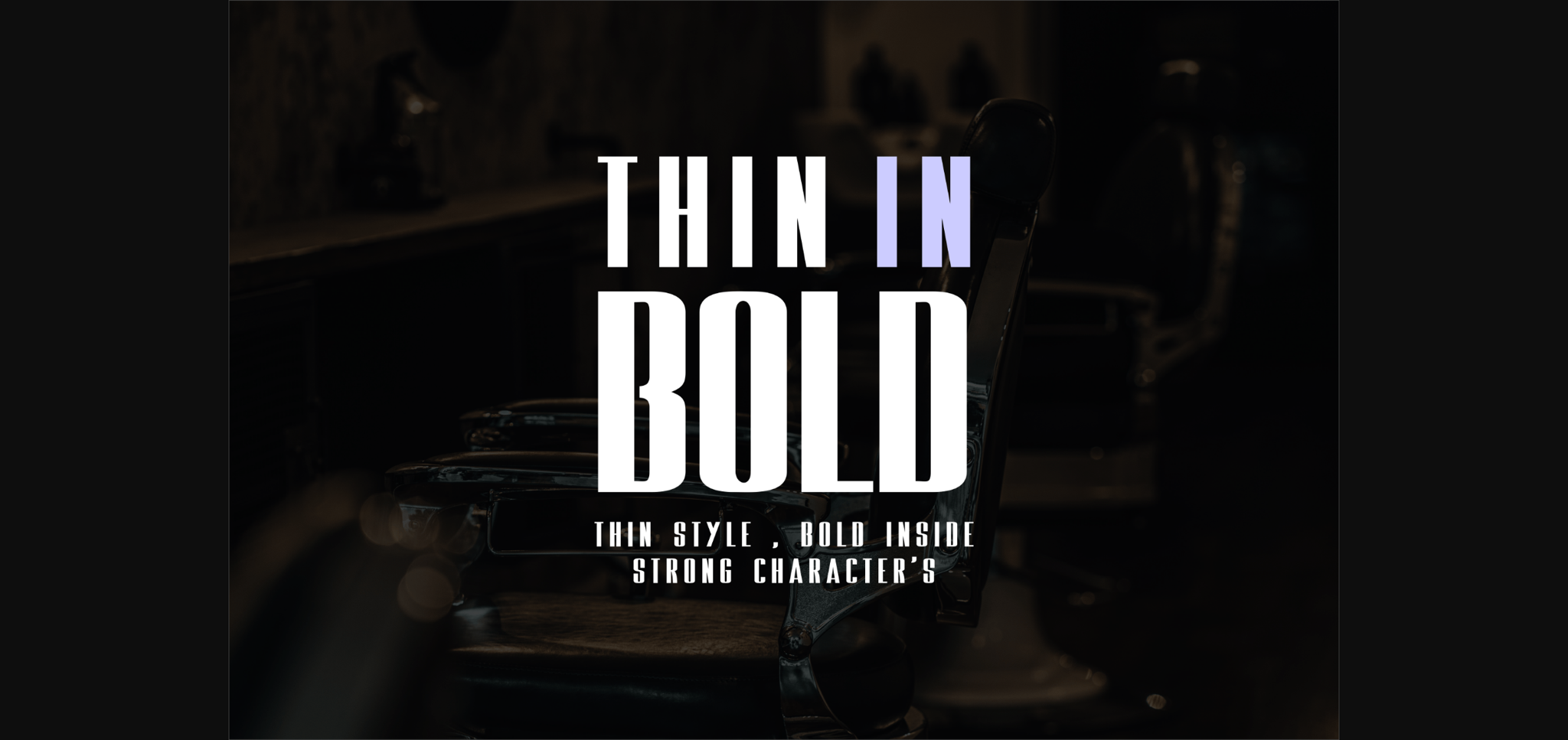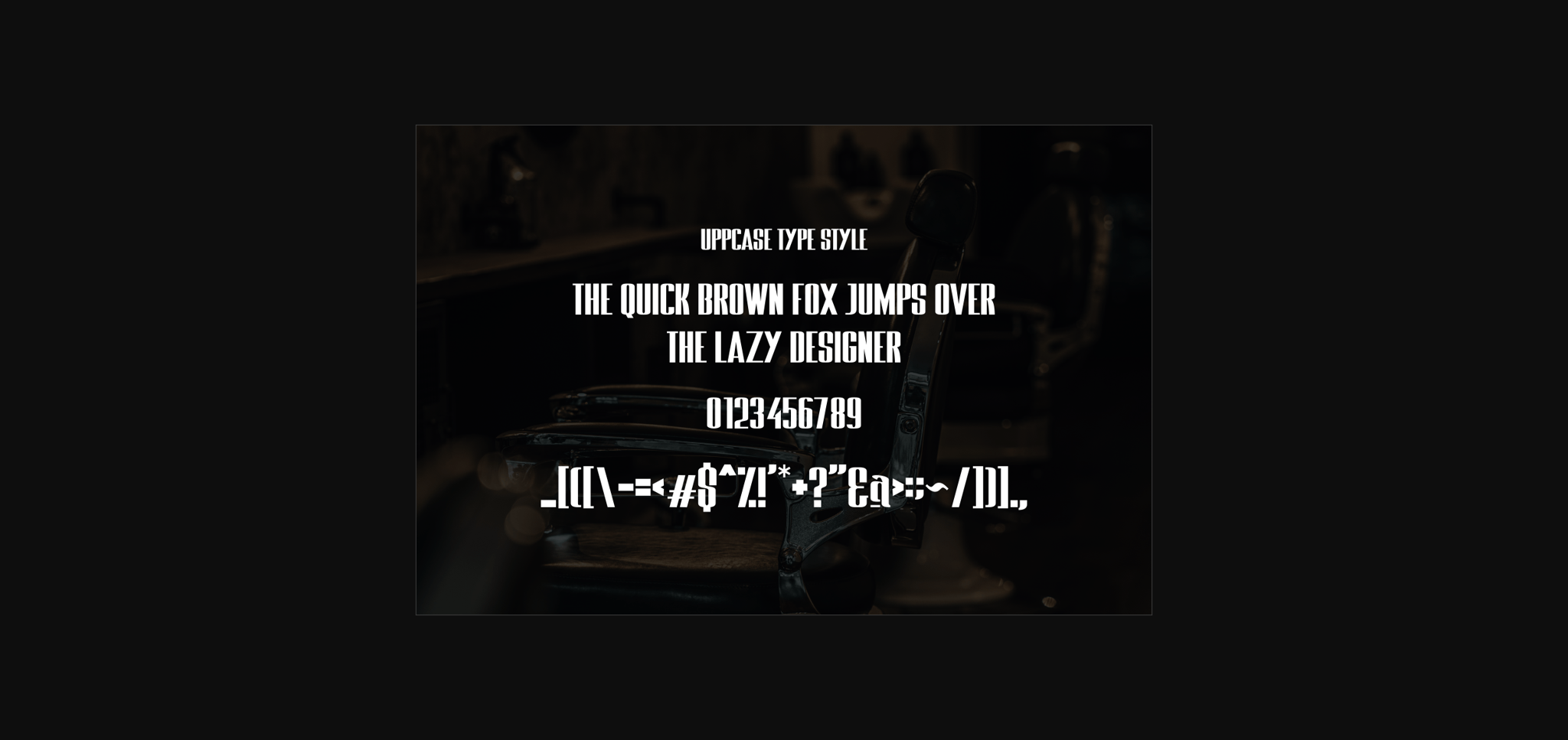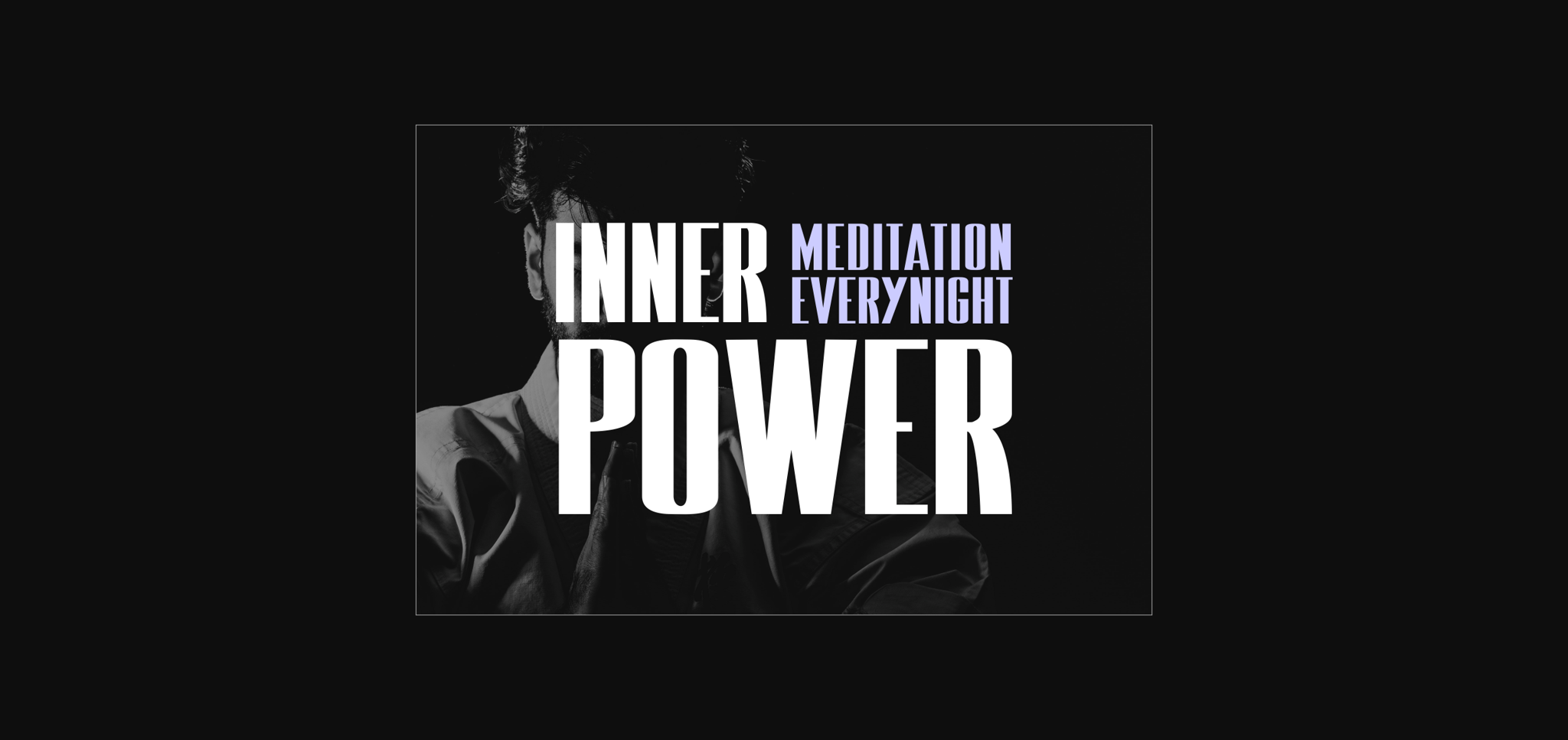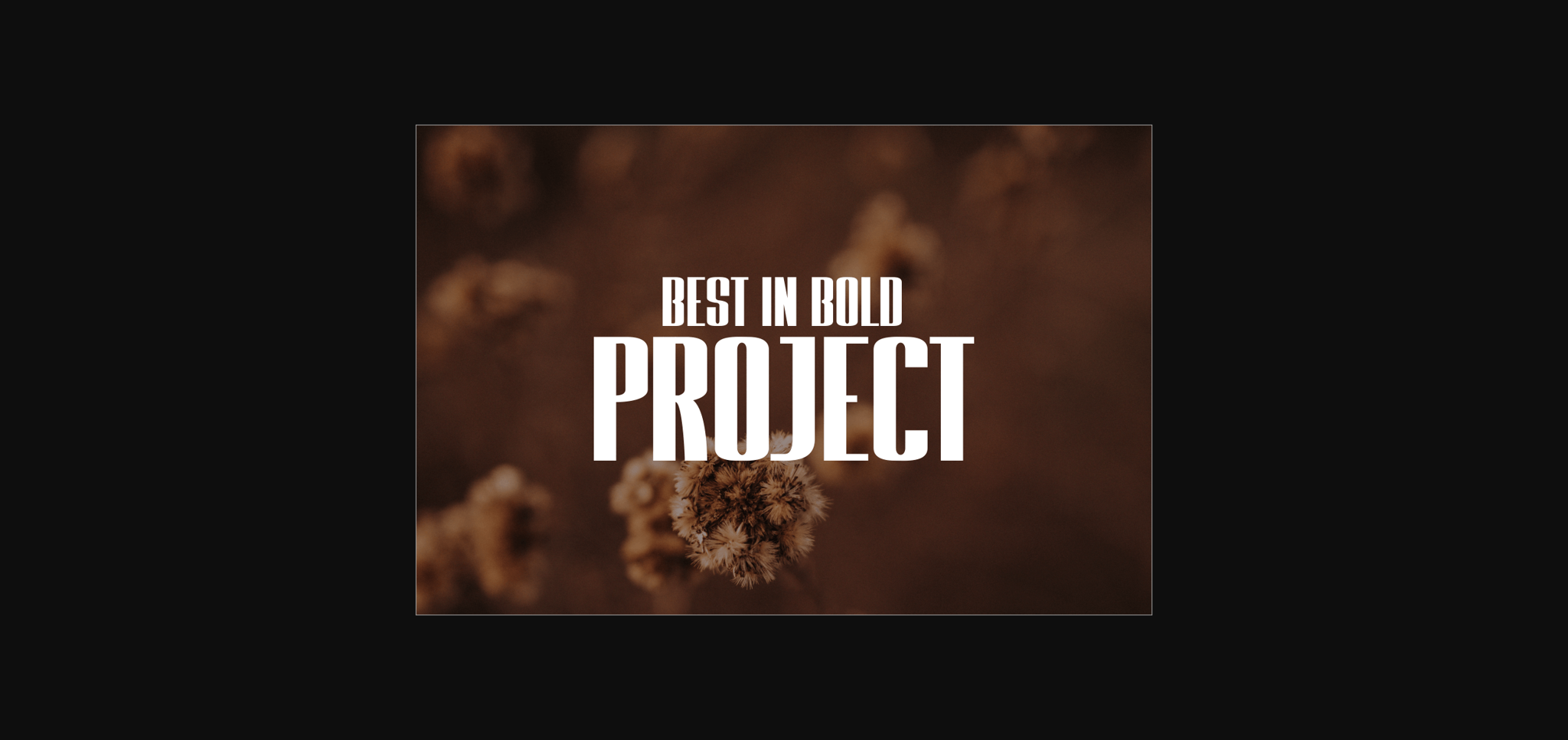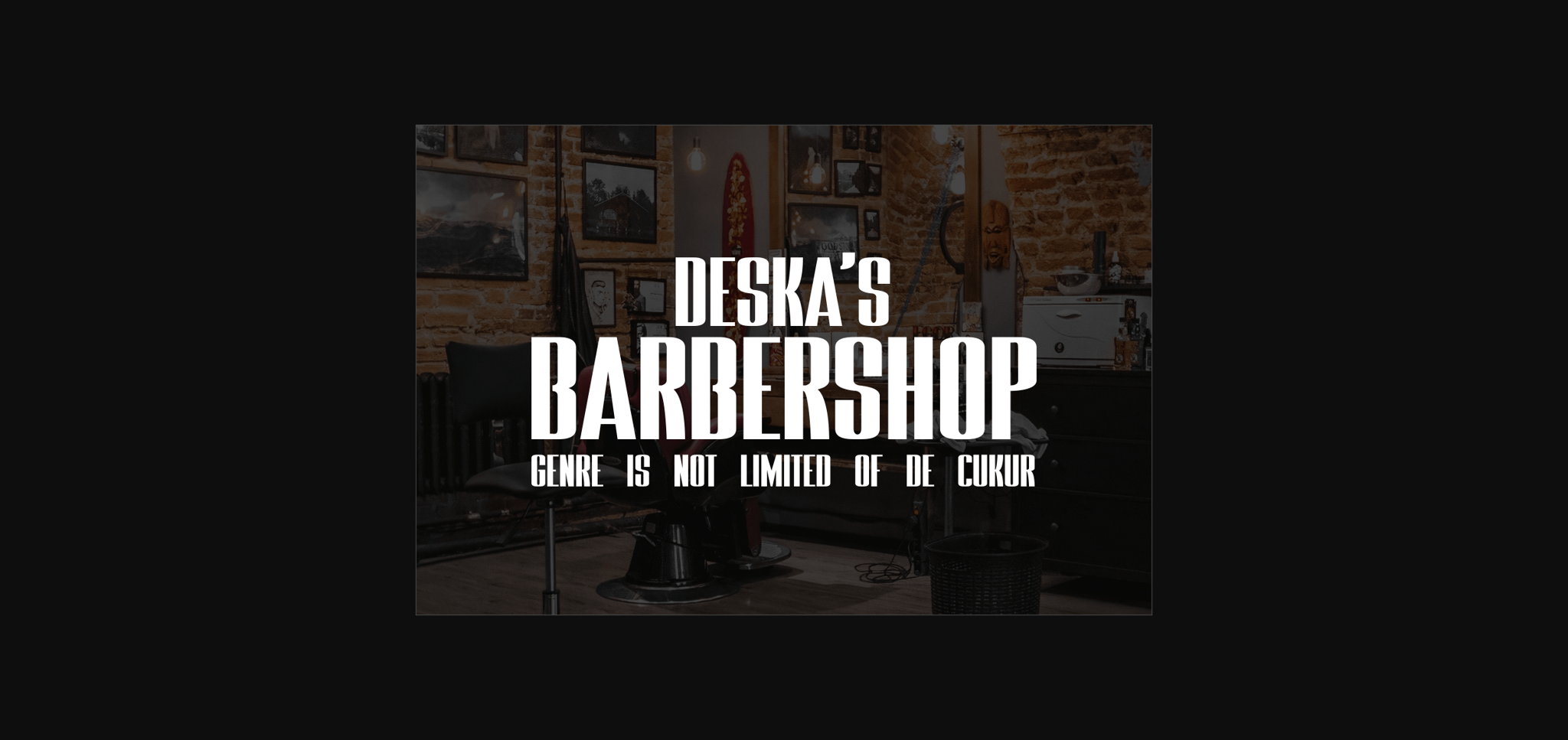
Thin in Bold Font
About Thin in Bold Font
Thin In Bold has an elegant, classy, and modern sans-serif look. It’s a great font for fashion, apparel projects, signature, album covers, logos, branding, magazine, social media, & advertisements, but also works great for other projects.